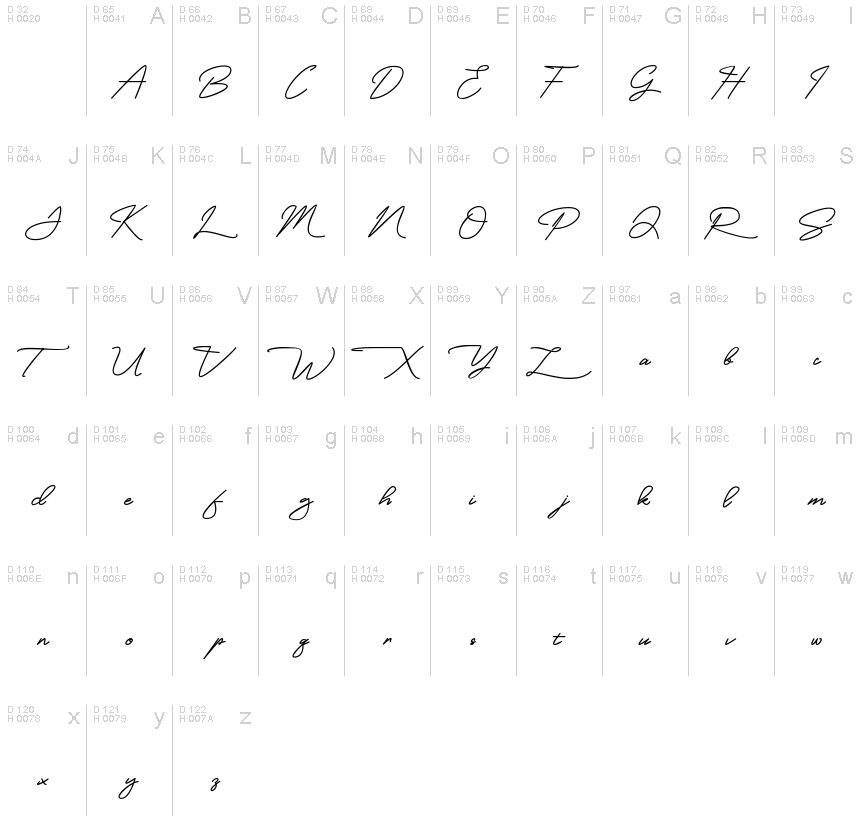
MangoSign
Mango Sign is a captivating handwritten font that exudes a lighthearted, whimsical charm. Designed by Intype, this font's fluid, organic strokes and delicate weight create a distinctly natural and contemporary aesthetic. The calligraphic flourishes and playful ligatures lend a sense of movement and personality, making Mango Sign an excellent choice for branding, stationery, and editorial design. Its versatility allows it to seamlessly transition between formal and informal contexts, elevating any project with its undeniable elegance and sophistication.
Mango Sign's unique character and versatility make it a valuable asset for designers seeking to infuse their work with a touch of artistry and personality. Its adaptability across a range of applications, from logos and labels to invitations and packaging, ensures that this font will shine in diverse design settings.